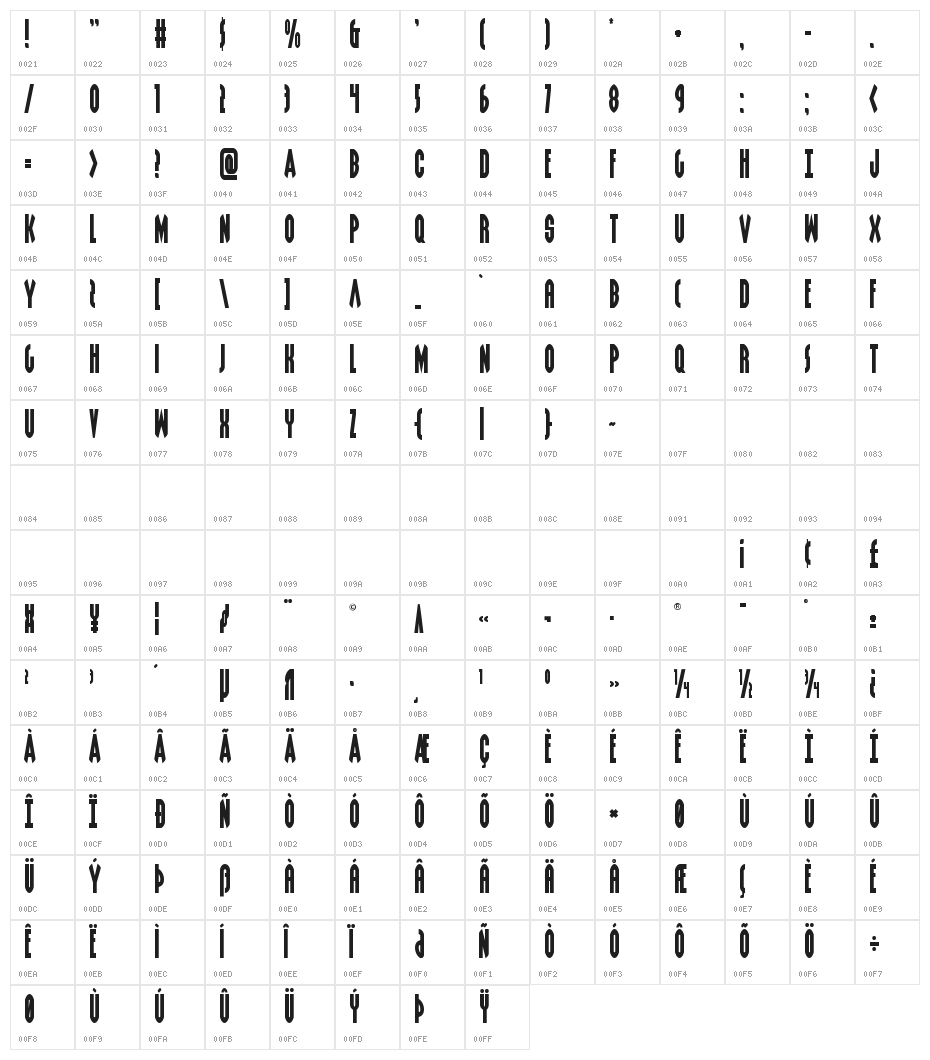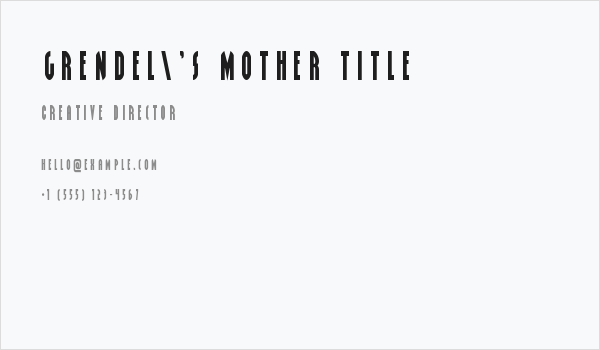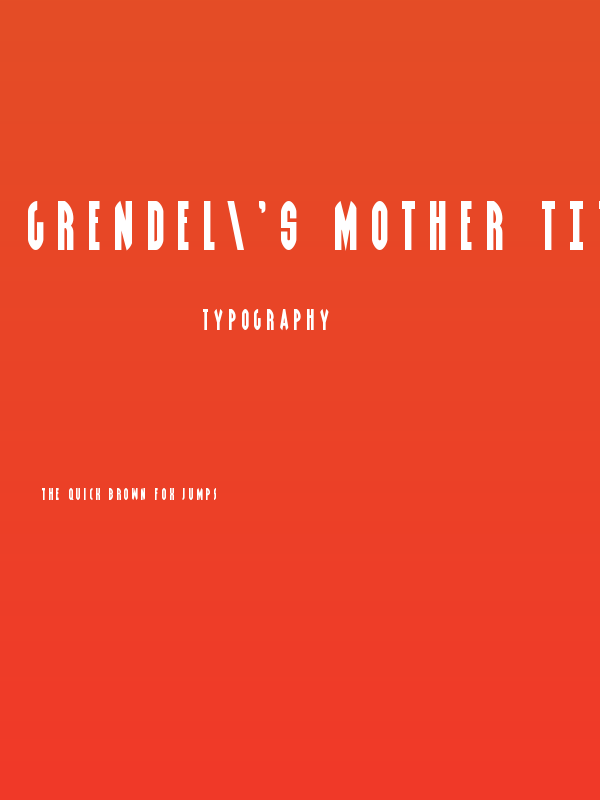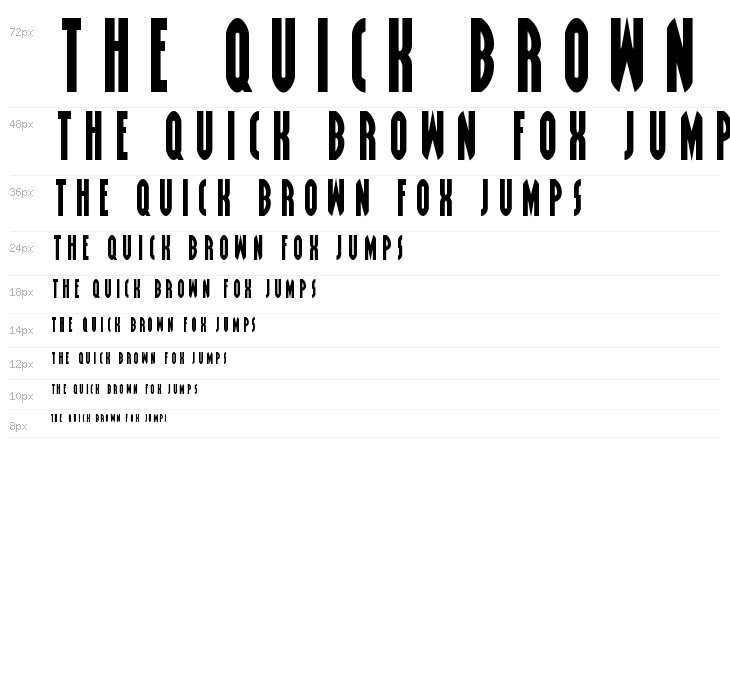
Grendel's Mother Title Font
Grendel's Mother Title Description
This font features bold, elongated characters with a strong vertical emphasis, creating a striking and impactful appearance. The letters are uniformly tall and narrow, with sharp angles and clean lines that contribute to a modern and assertive style. The uppercase and lowercase letters maintain a consistent design, ensuring readability while adding a unique flair. Numbers and special characters follow the same aesthetic, making the font versatile for various applications. The overall look is both contemporary and slightly retro, reminiscent of vintage poster typography.
| Proposed Projects | Ideal for use in posters, headlines, branding, and any design requiring a bold statement. |